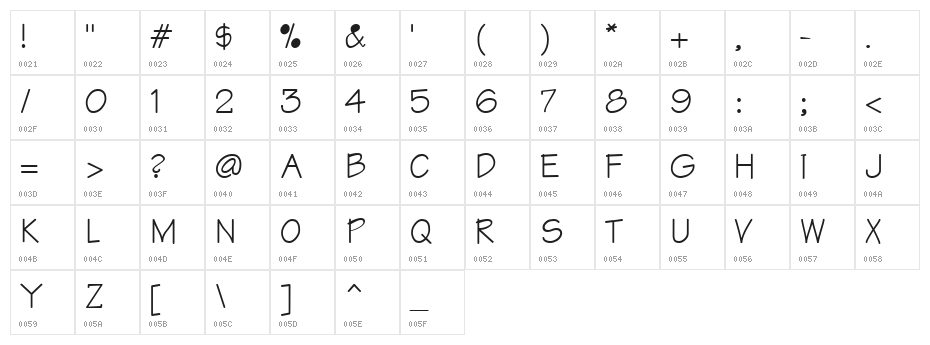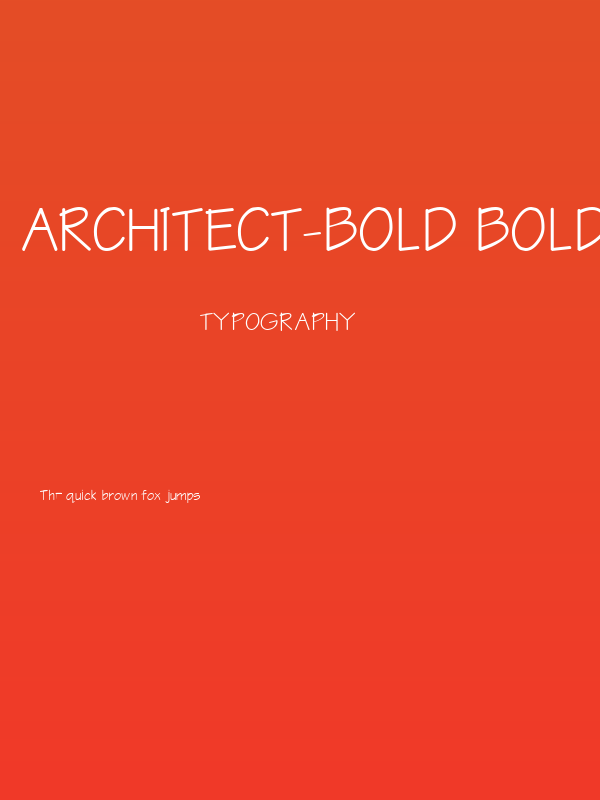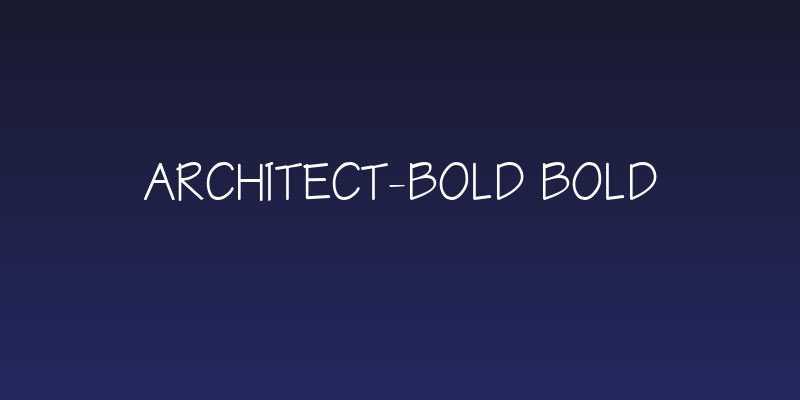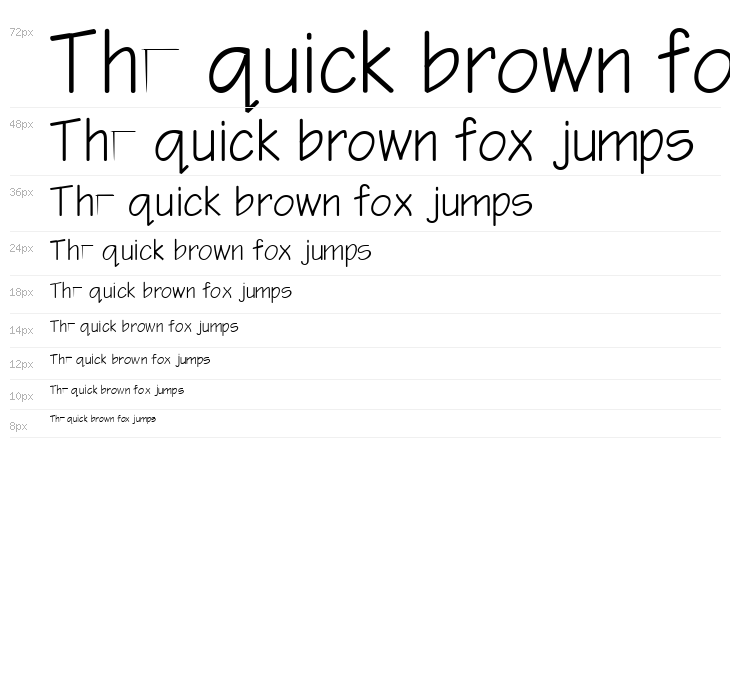
Architect-Bold Bold Font
Architect-Bold Bold Description
This font features a playful and casual handwritten style, characterized by its smooth, rounded edges and slightly irregular strokes. The uppercase letters maintain a consistent height, while the lowercase letters exhibit a friendly, approachable appearance. The numerals are clear and legible, matching the overall style of the alphabet. Special characters are well-integrated, maintaining the font's cohesive look. This font's informal and relaxed aesthetic makes it suitable for projects that aim to convey a sense of warmth and friendliness.
| Overall Style | Casual |
| Use Case | Logos, Headlines, Informal text |
| Proposed Projects | Ideal for greeting cards, children's books, informal invitations, and playful branding. |